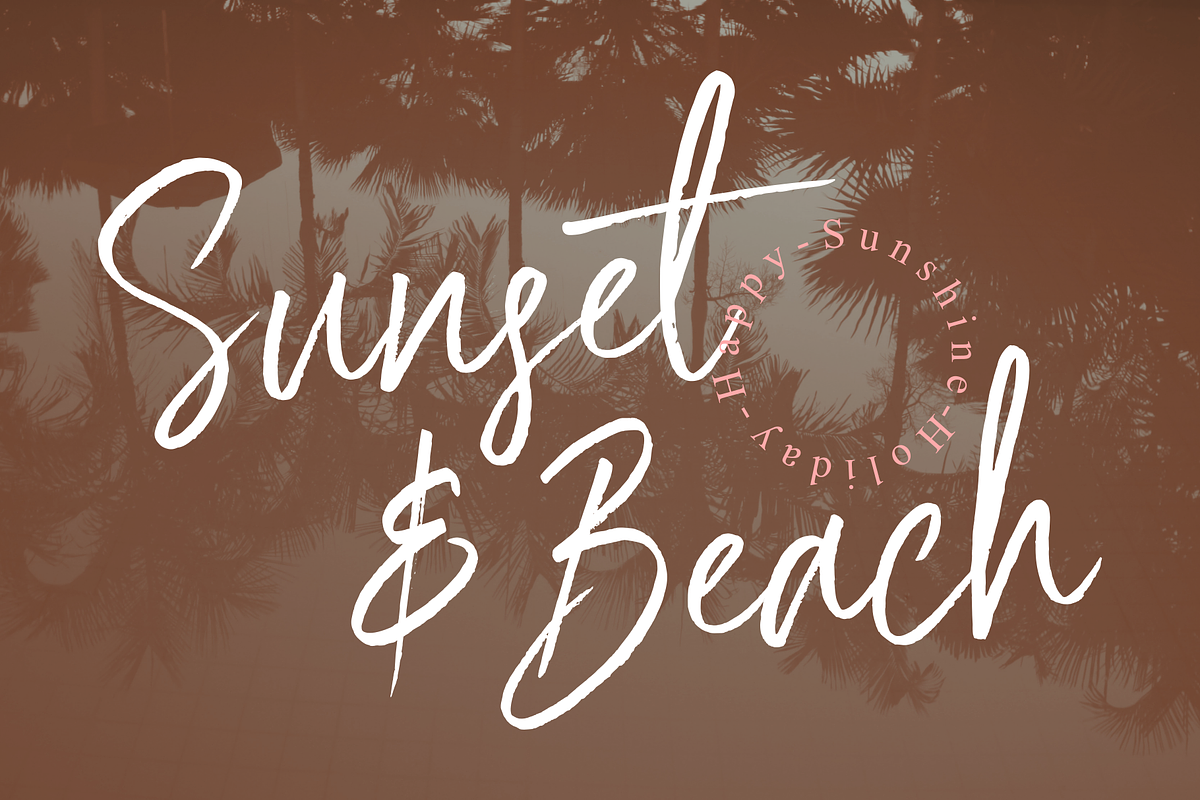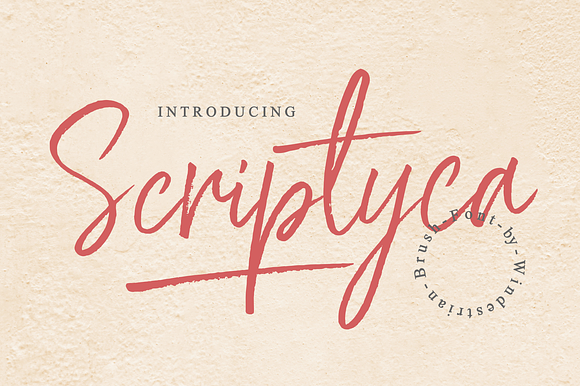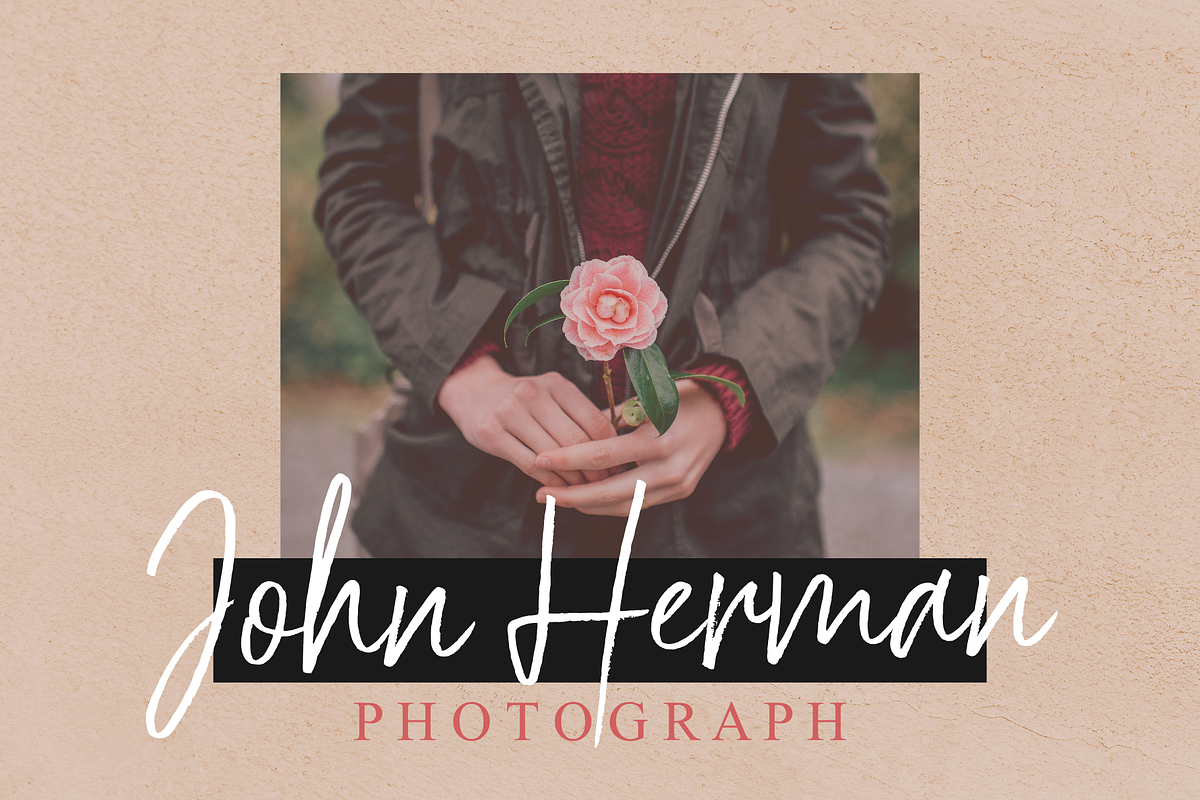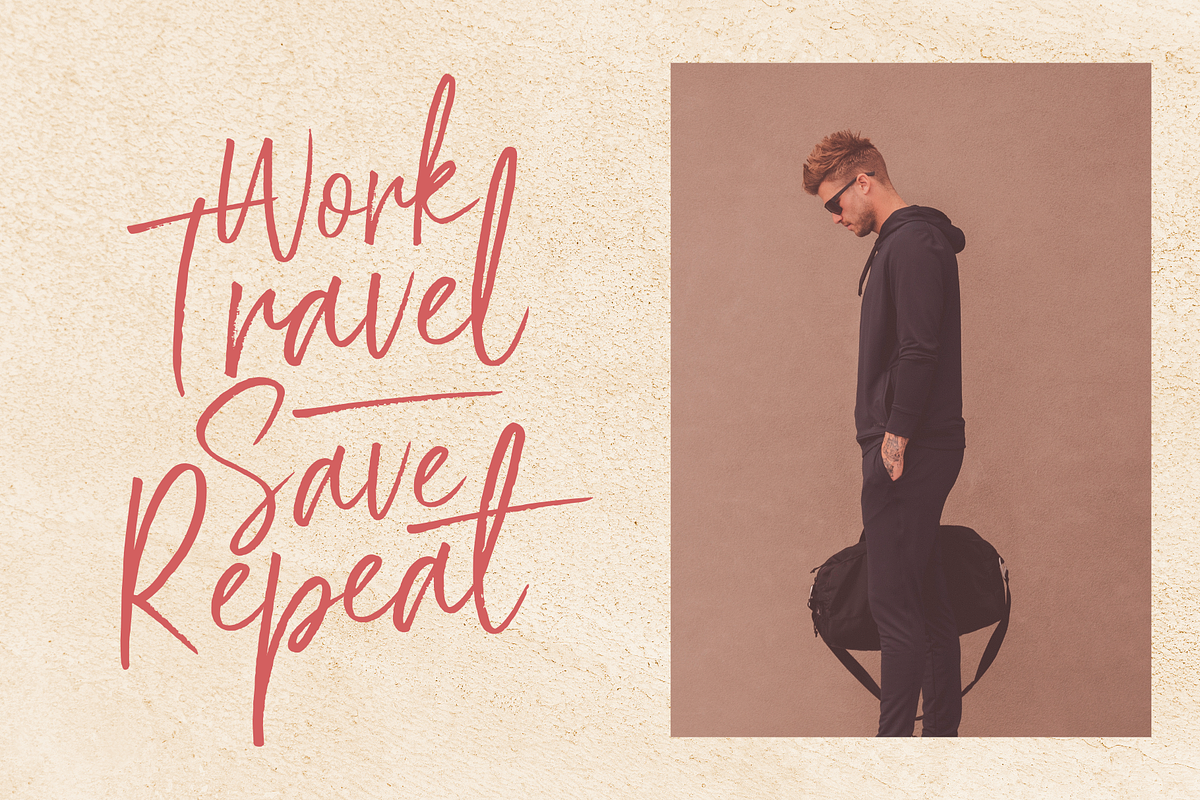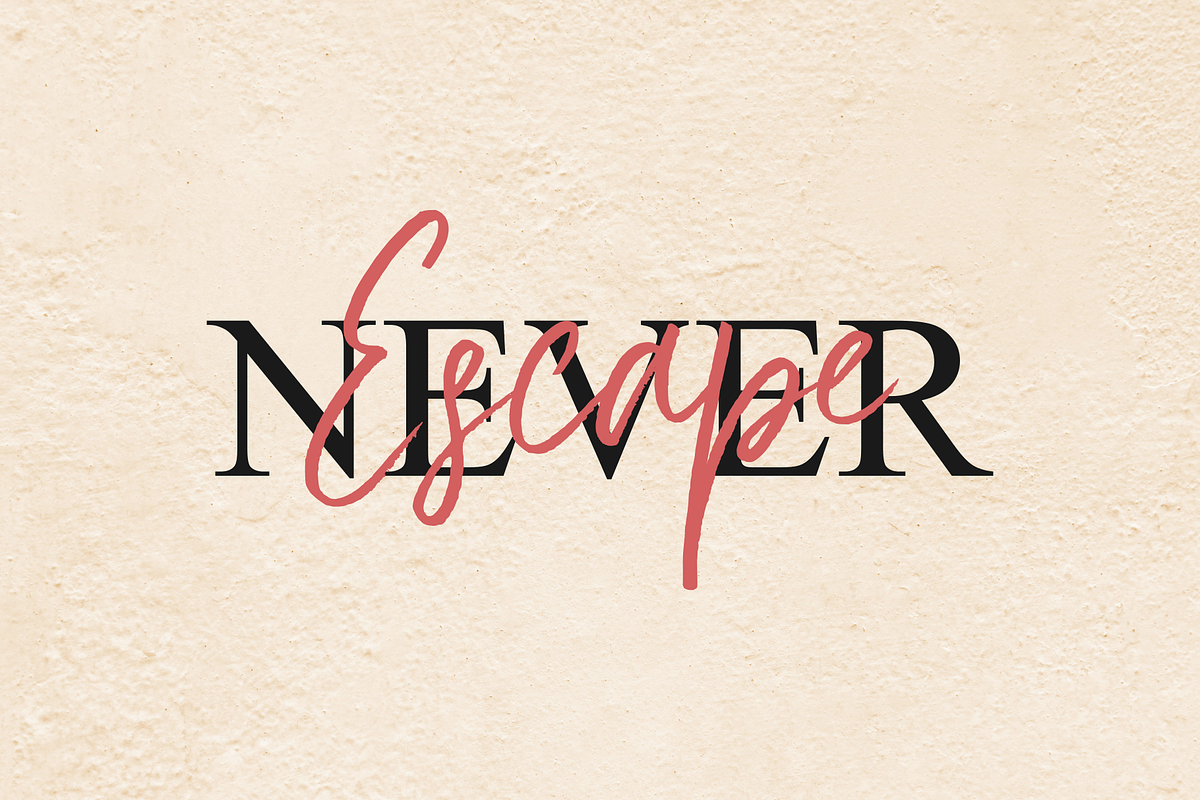
Scriptyca | Brush Font
This is my first handwritten font. That's simple, bouncy and cool. Scriptyca can be incorporated into many designs including quotes text, wedding invitations, posters and you can create custom cards to give to your friends and family.
- for the ligature, you can type tt
- for the swash, you can type | (vertical line) or (underscore)